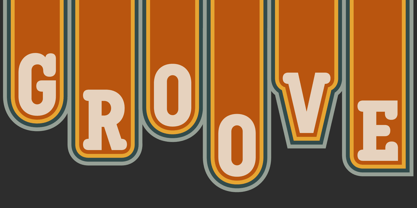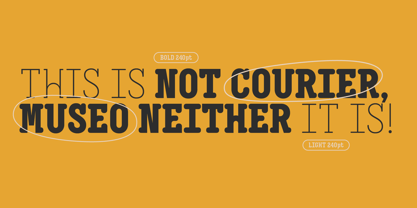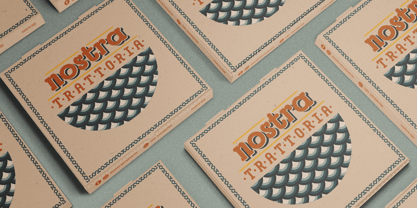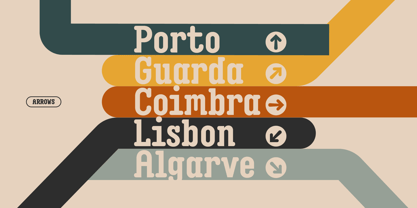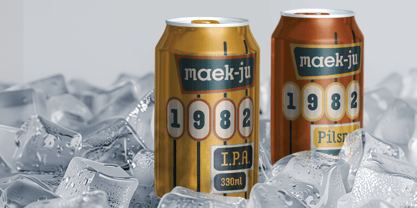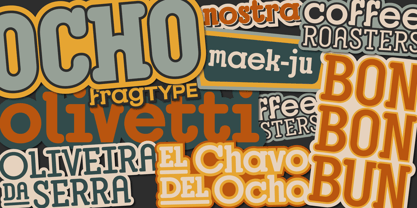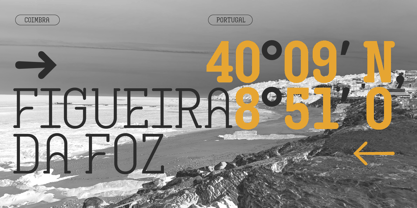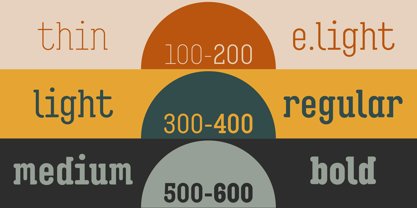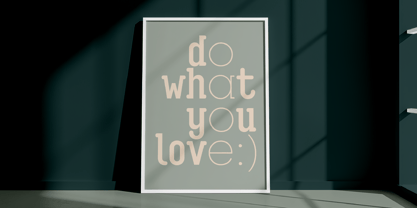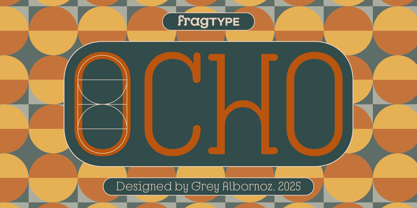
Ocho
The Ocho Font Family was designed by Grey Albornoz and published by fragTYPE. Ocho contains 6 styles and family package options. More about this family
Born by the beaches of Portugal, Ocho is a font family that blurs genres and captivates attention.
Ocho’s unique structure comes from an underlying geometry of circles and squares, a nod to the geometry that underpins much of Portugal’s iconic architecture and tiling. Ocho’s mixture of round and hard features combined with a semi-serifed construction give it a playful rhythm. The circular alternates, used sparingly amongst the condensed proportions, add a pop of life to the rigid structure.
Ocho is a font family that defies categories, but maintains appeal.